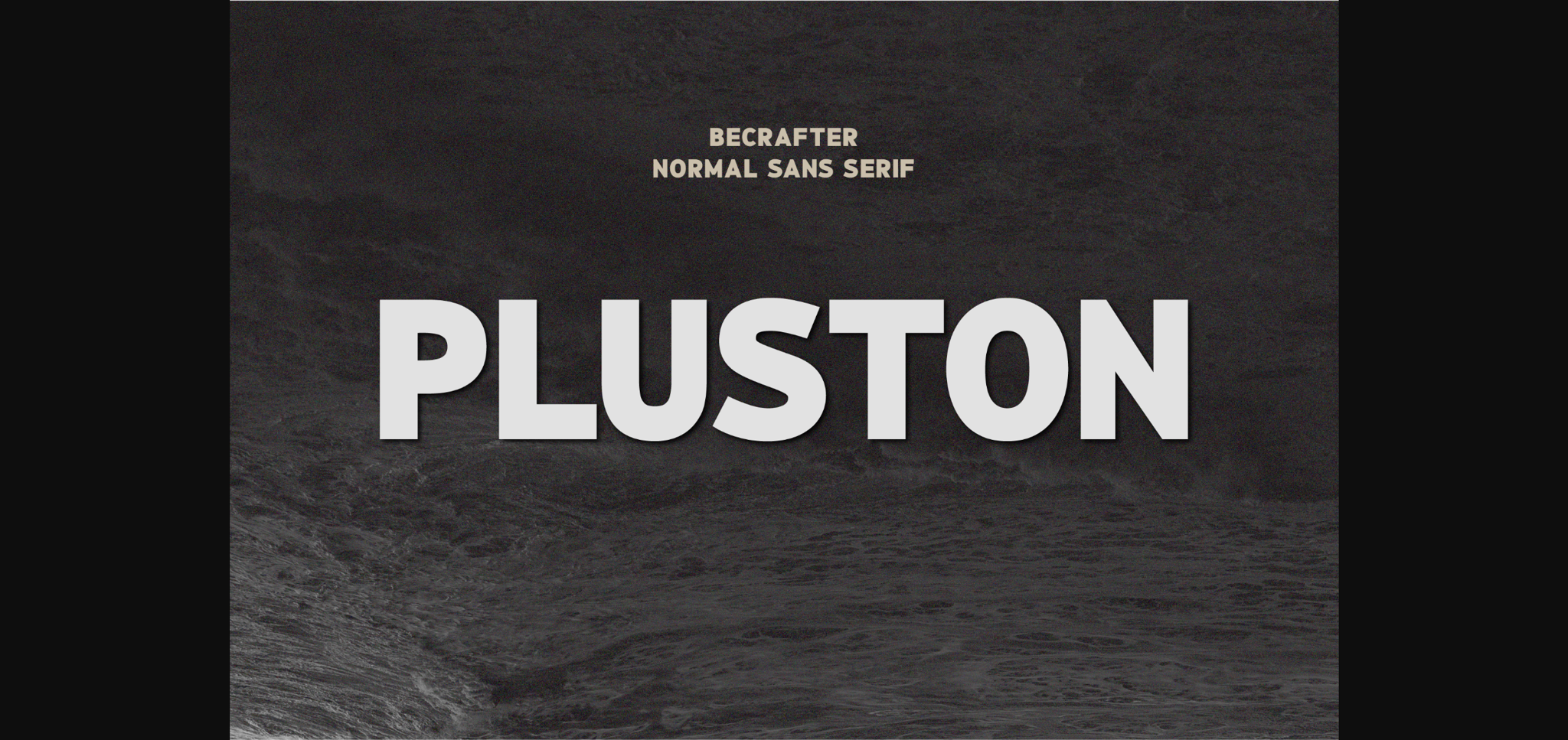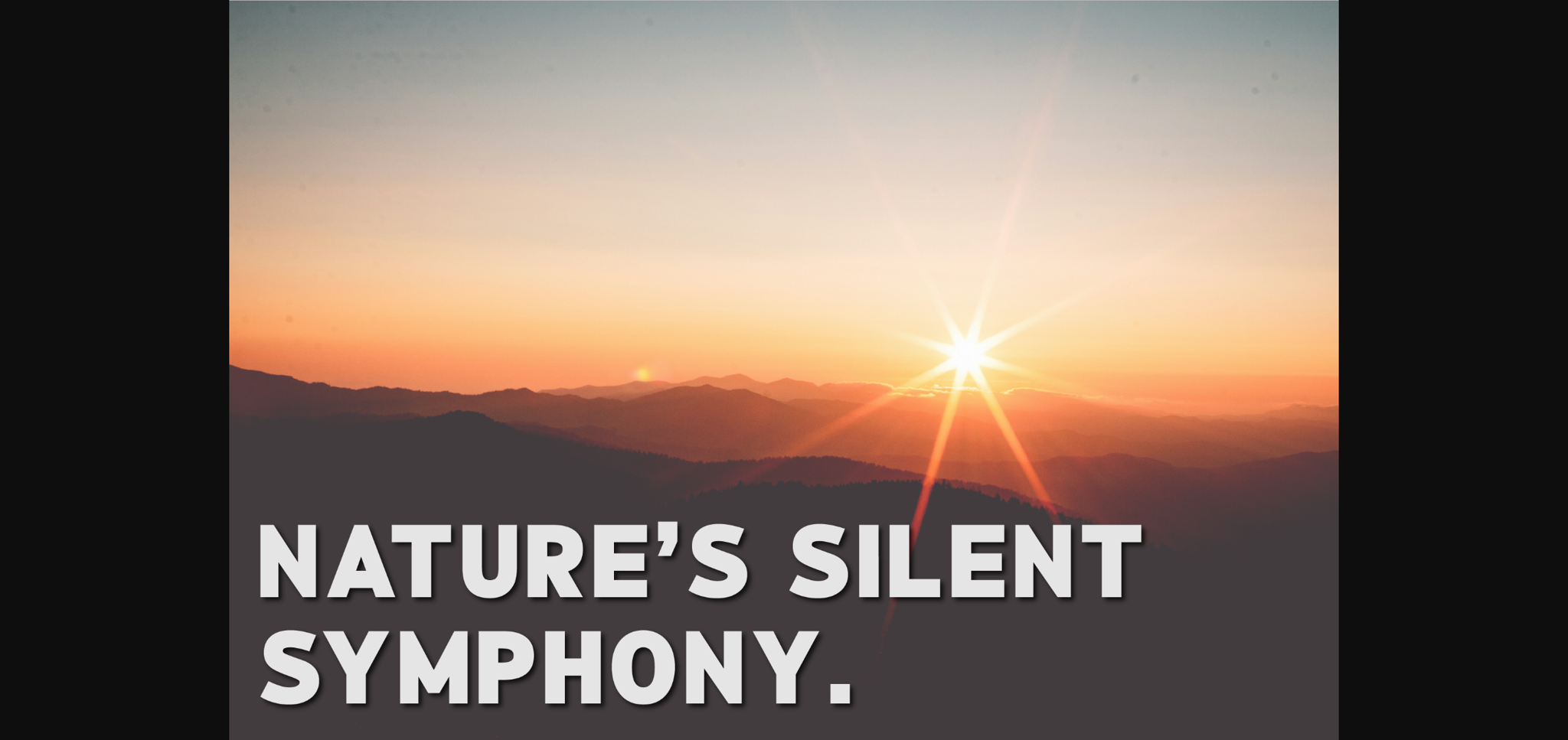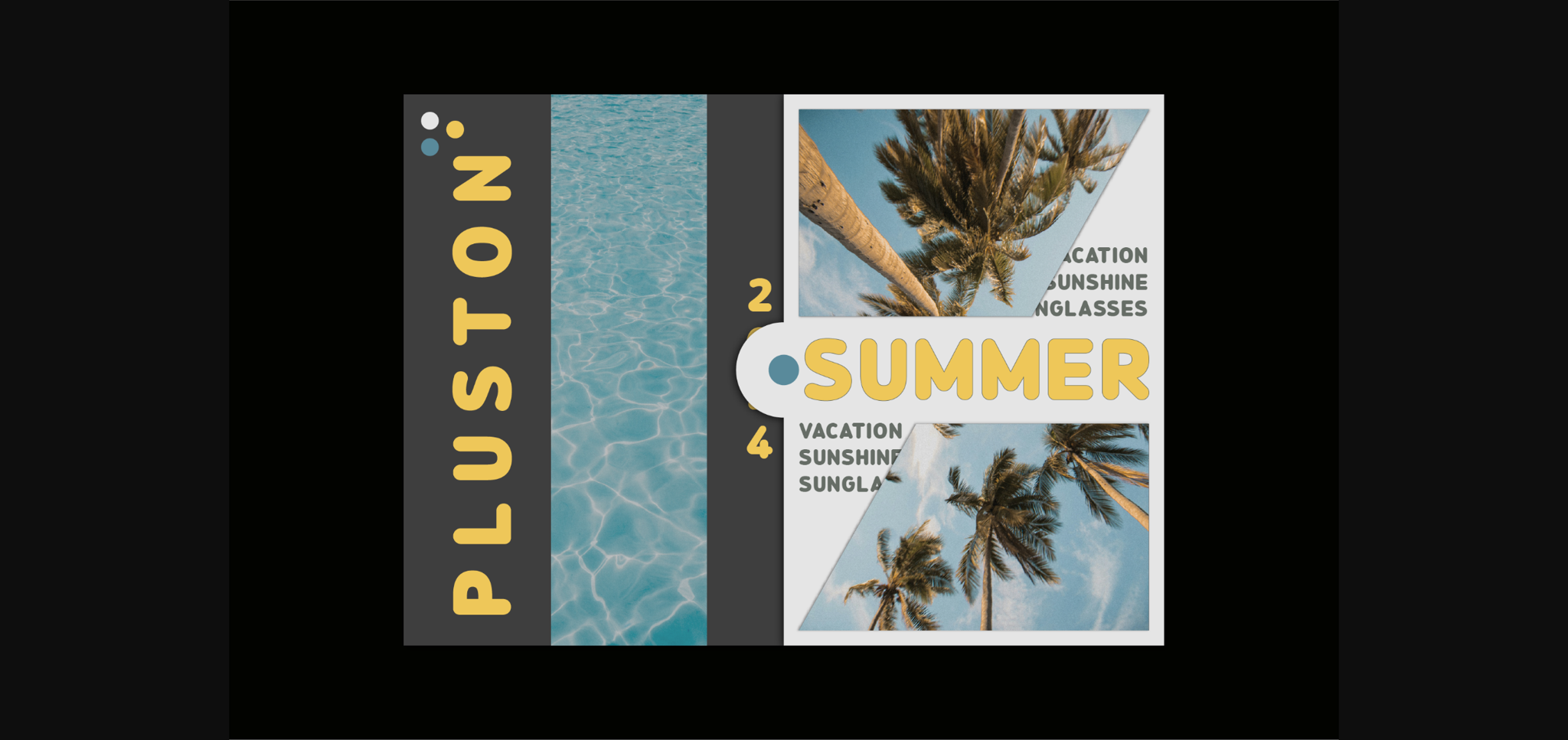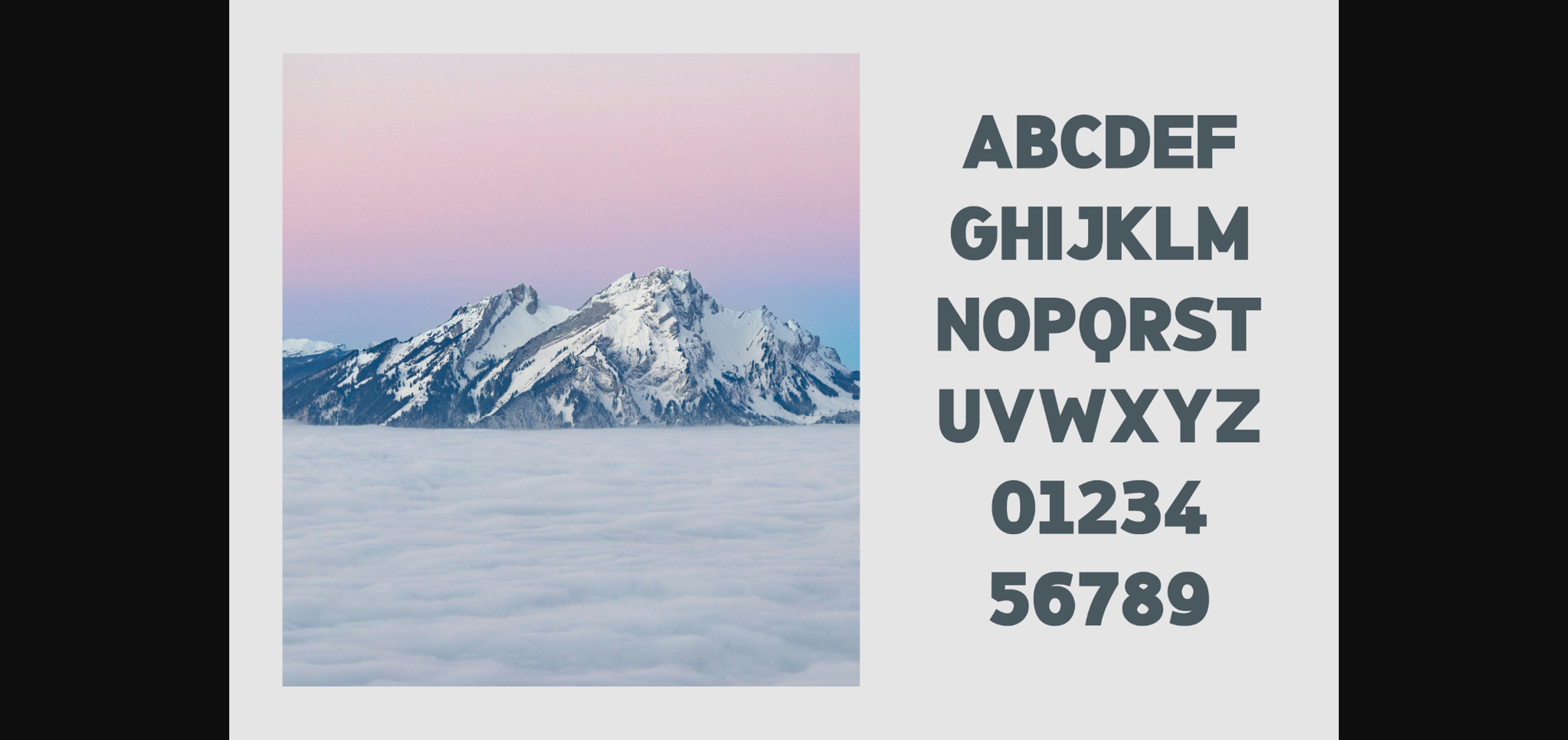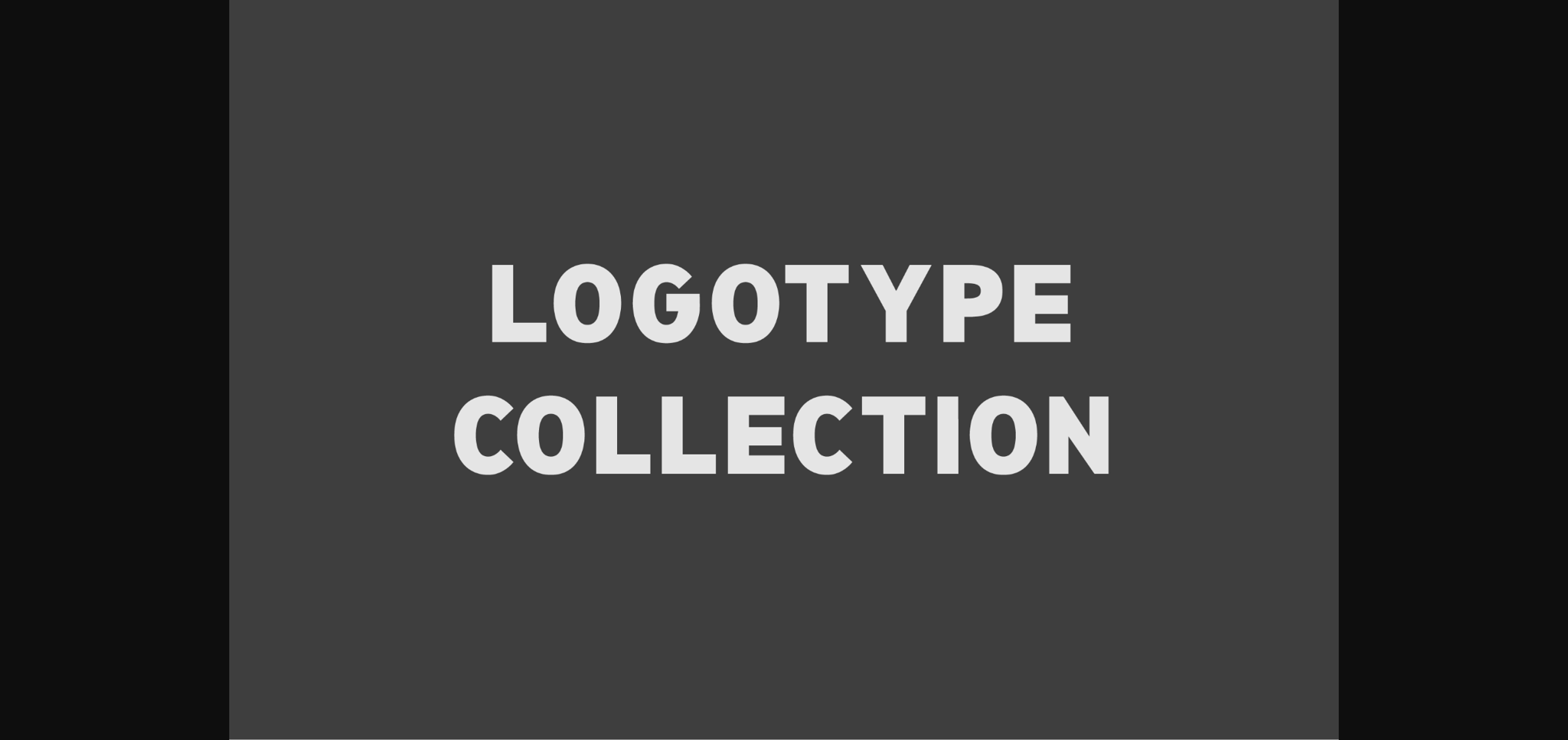
Pluston Font
About Pluston Font
Introducing Pluston, a robust and eye-catching type font. Crafted with bold strokes, this exclusively uppercase vintage sans serif font brings a versatile charm to any design. Effortlessly adapt it to a diverse range of uses, from designing captivating logos to crafting impactful printed materials. The package also includes numbers and punctuation, allowing you to infuse your creative projects with the unique elegance of Pluston. Experience the power of a vintage touch mixed with modern versatility with Pluston!